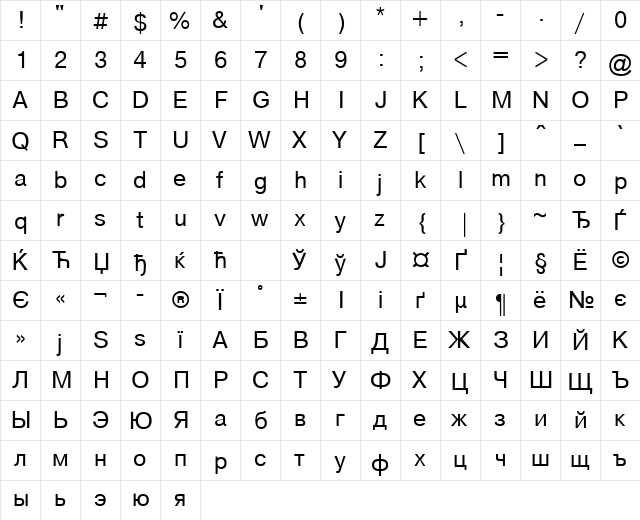
ArtsansC Regular Font Preview
ArtsansC Regular
Design Context for ArtsansC Typeface
ArtsansC is a composed and adaptable typeface that performs quietly and consistently across a wide range of design contexts.